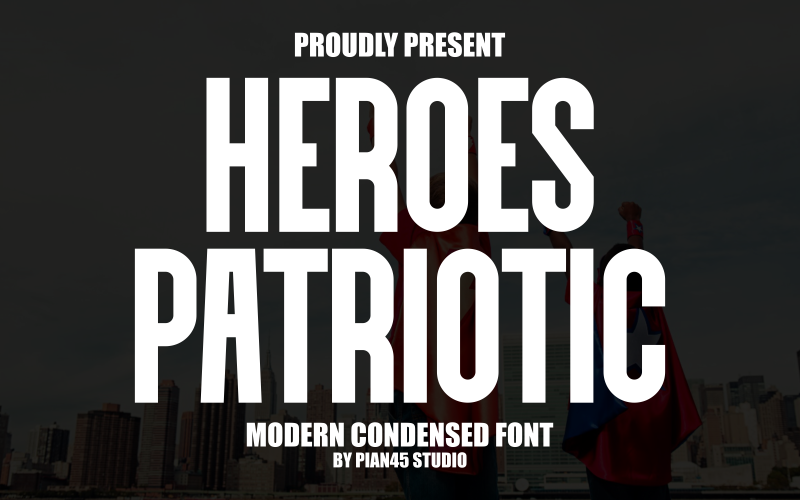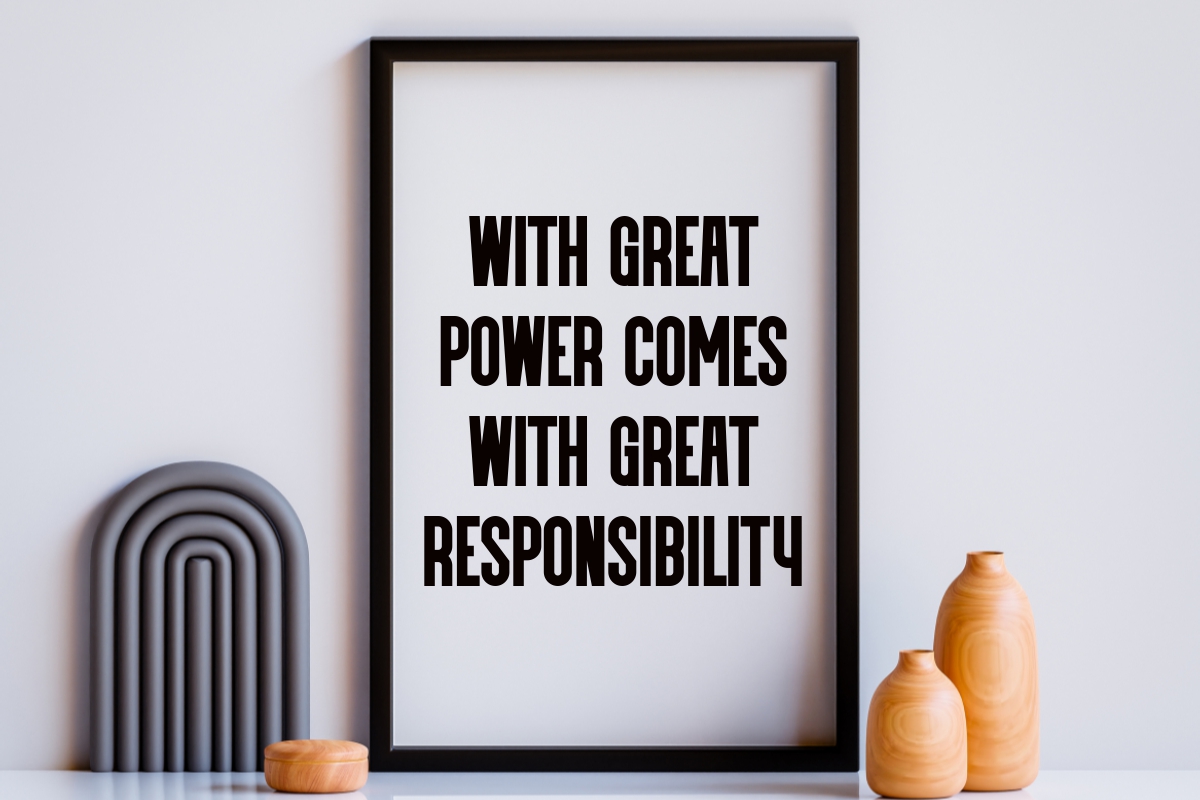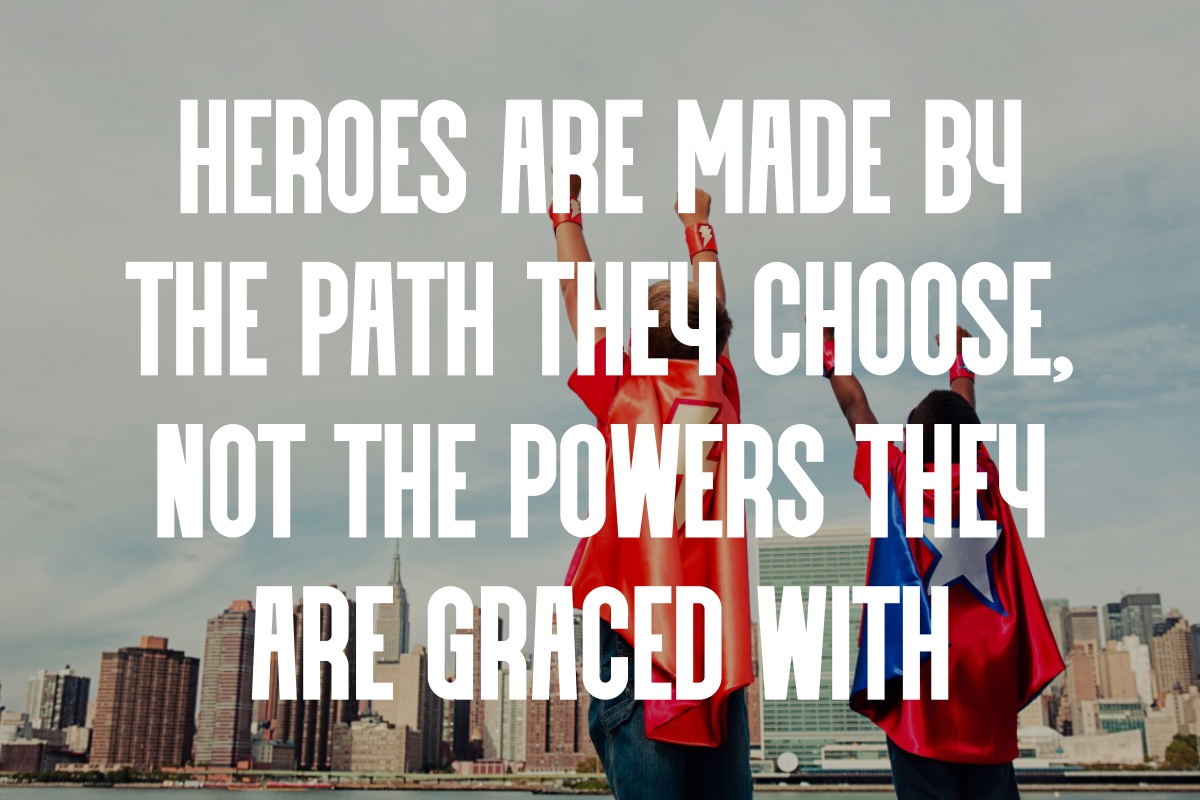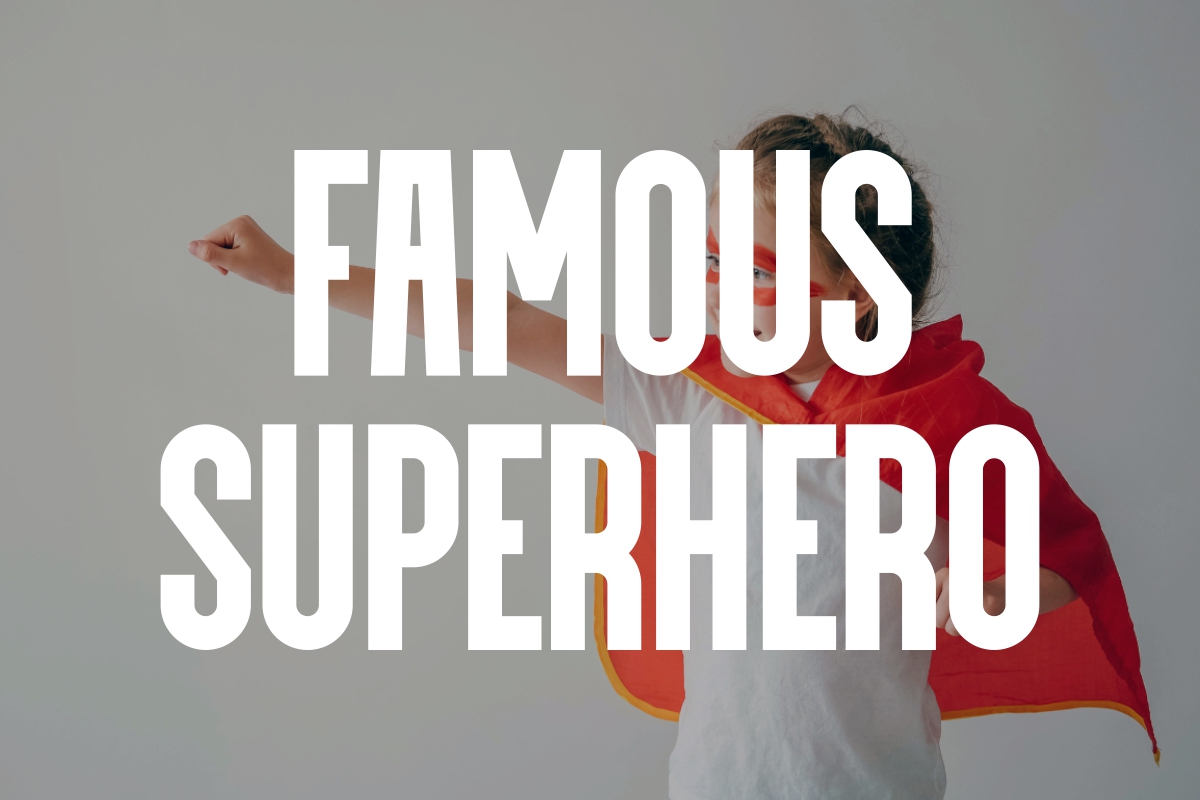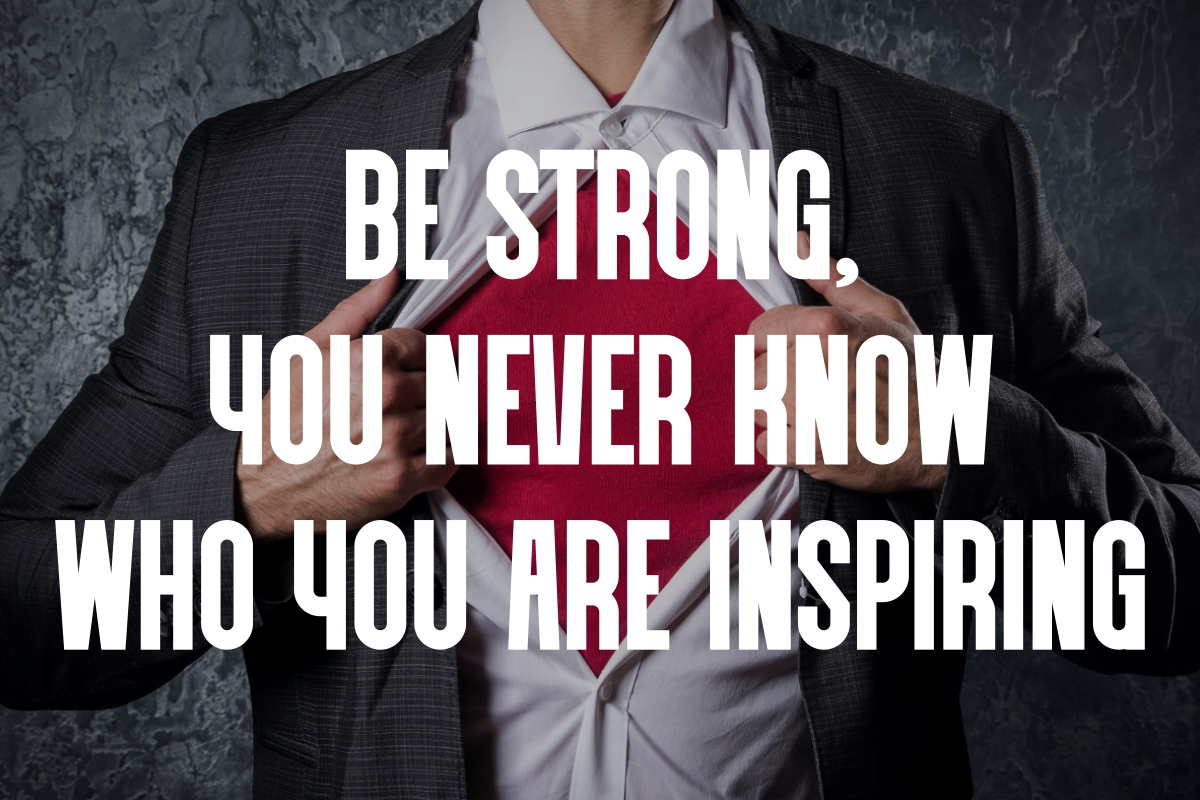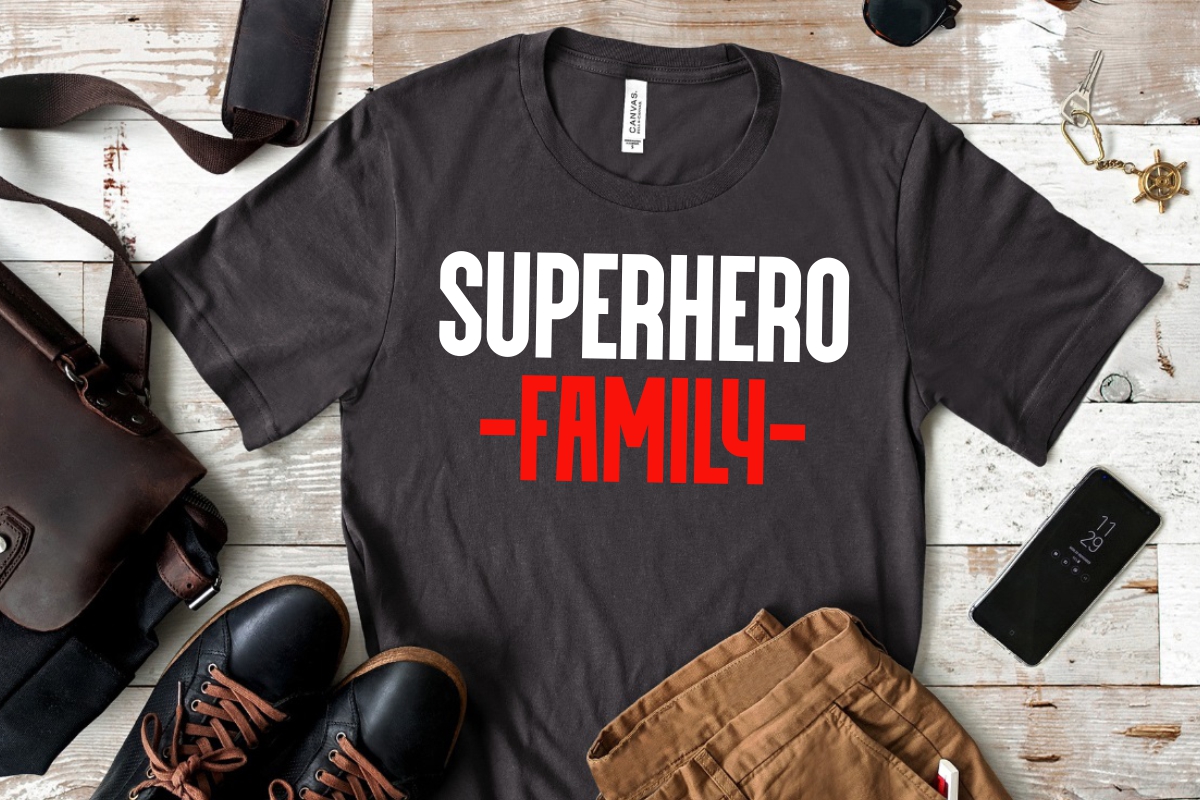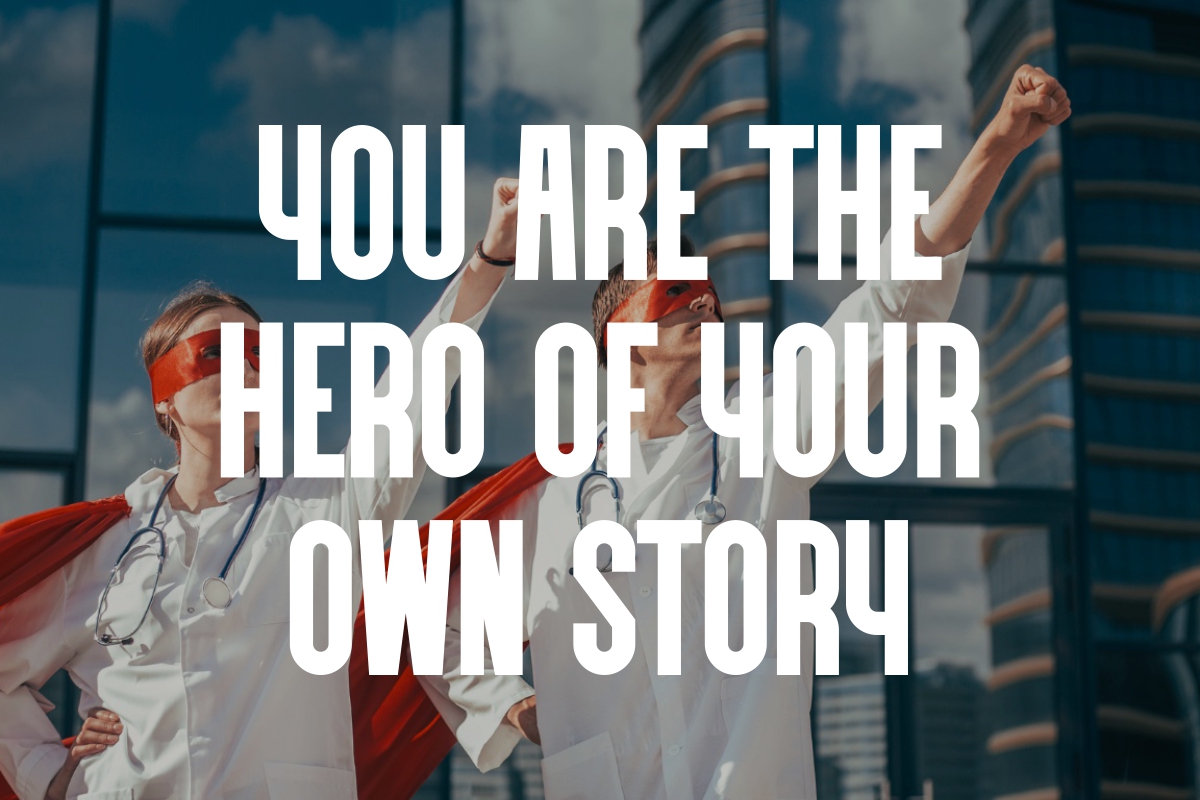
Heroes Patriotic - Condensed Sans Serif Font
Introducing HEROES PATRIOTIC, a powerhouse display font engineered for maximum visual dominance. This ultra-bold, all-caps condensed sans serif is the ideal choice for designers who need their message to be clear, commanding, and impossible to ignore. Inspired by bold military insignia, modern athletic jerseys, and powerful event signage, Heroes Patriotic provides a solid, authoritative structure. Its condensed nature allows you to fit large, striking text into tight vertical layouts, making it highly efficient for impactful headlines and bold logo designs. Use it when you need to convey strength, honor, and high energy.